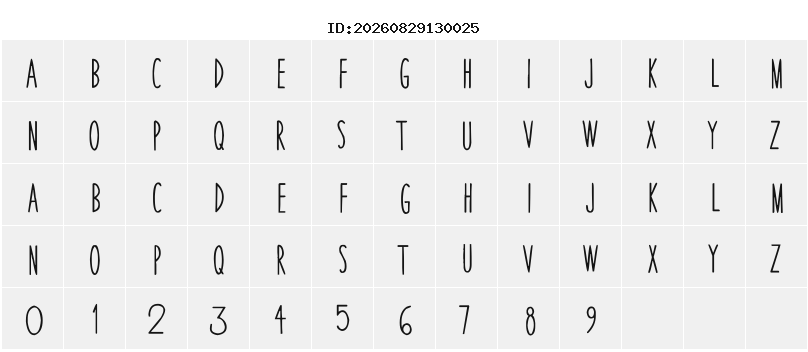
• Font Name: Thin Skinned
• Full Font Name: Thin Skinned
• Version: Version 1.00 March 10, 2014, initial release
About Thin Skinned.ttf
Thin Skinned.ttf is a modern, elegant sans-serif font designed for ultimate readability and visual harmony. Perfect for branding, headlines, web design, and print materials.